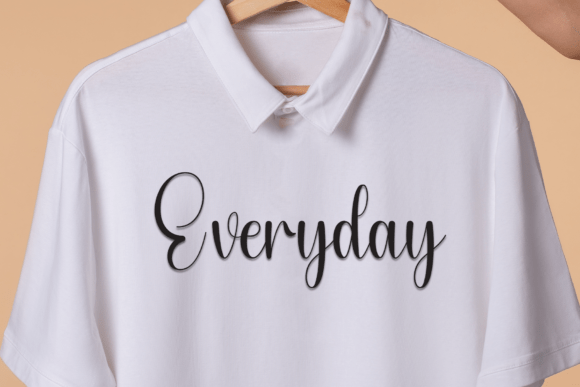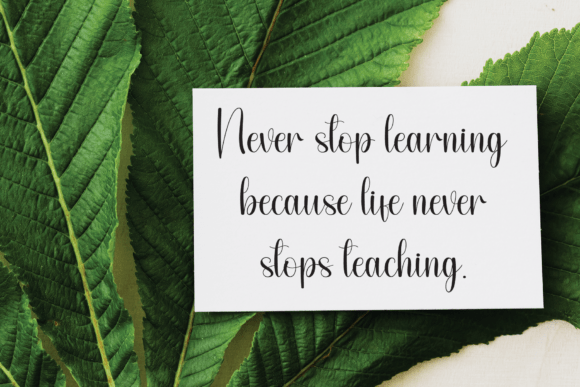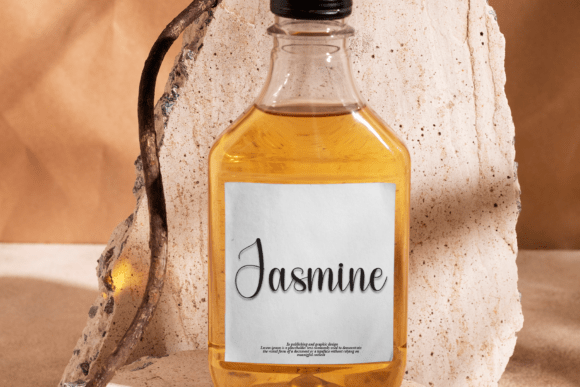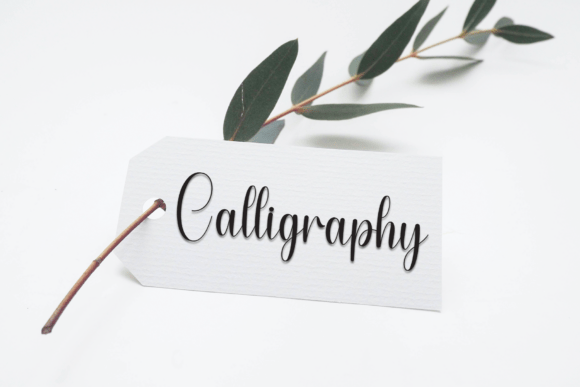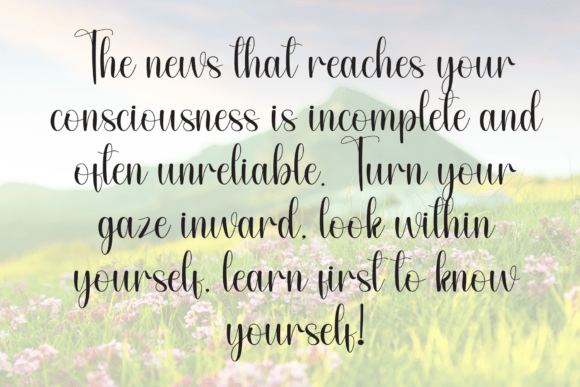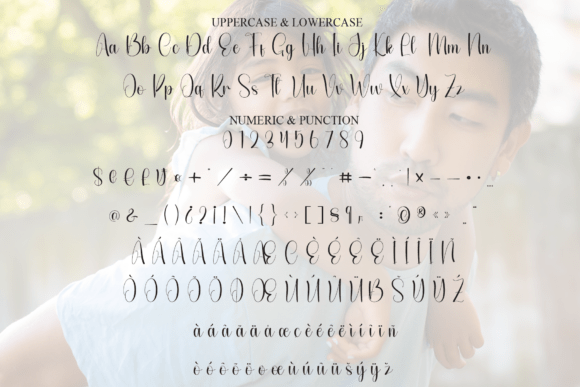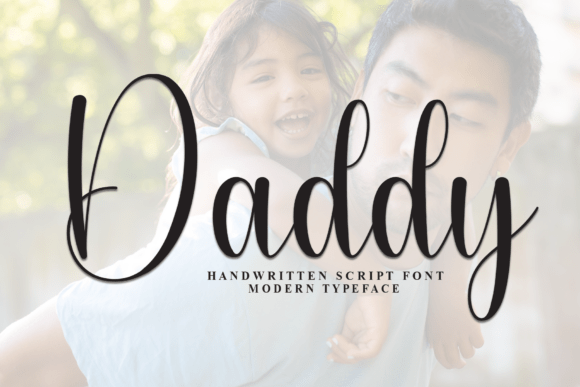
Daddy Font: Elevate Your Designs with Elegance and Playfulness
In the world of typography, fonts play a crucial role in conveying the tone and personality of a brand, product, or message. For designers and crafters seeking a stylish and versatile font, Daddy Font is an excellent choice. This beautiful handwritten script font embodies elegance and playfulness, making it perfect for various creative projects.
The Characteristics of Daddy Font
Daddy Font is a stunning example of modern script typography. Its flowing curves and natural rhythm give it a unique, organic feel that sets it apart from more traditional fonts. The font’s design is characterized by:
- Elegant strokes: Daddy Font features smooth, flowing strokes that exude sophistication and refinement.
- Playful flair: The font’s playful undertones add a touch of whimsy and fun, making it ideal for creative projects that require a personal touch.
- Natural rhythm: The font’s natural rhythm and flow create a sense of movement and energy, drawing the viewer’s eye through the text.
Uses for Daddy Font
Daddy Font’s versatility makes it suitable for a wide range of applications, including:
- Invitations: Add a touch of elegance and sophistication to wedding invitations, birthday party invites, or other special occasion cards.
- Branding: Use Daddy Font to create a unique and memorable brand identity for your business or product.
- Social media: Elevate your social media presence with eye-catching graphics and posts featuring Daddy Font.
- Digital and print media: Use the font in digital and print materials, such as brochures, flyers, and posters, to add a personal touch.
Benefits of Using Daddy Font
By incorporating Daddy Font into your designs, you can:
- Add warmth and personality: The font’s elegant and playful design brings a sense of warmth and approachability to your projects.
- Convey sophistication and creativity: Daddy Font’s refined strokes and natural rhythm convey a sense of sophistication and creativity, perfect for brands and designers seeking to stand out.
- Enhance visual appeal: The font’s unique design and flowing curves make it a visually appealing addition to any project.
Tips for Using Daddy Font Effectively
To get the most out of Daddy Font, consider the following tips:
- Pair with complementary fonts: Combine Daddy Font with clean, simple fonts to create a striking contrast and add visual interest.
- Experiment with colors and textures: Play with different colors and textures to enhance the font’s natural rhythm and elegance.
- Use it sparingly: Use Daddy Font judiciously to avoid overwhelming the viewer – a little goes a long way in making a big impact.
Daddy Font is a stunning handwritten script font that brings elegance, playfulness, and sophistication to any project. Its flowing curves, natural rhythm, and refined strokes make it perfect for designers and crafters seeking to add a personal touch to their creations. With its versatility and visual appeal, Daddy Font is an excellent choice for a wide range of applications, from invitations and branding to social media and digital media. By incorporating Daddy Font into your designs, you can elevate your work and create memorable, eye-catching projects that stand out from the crowd.